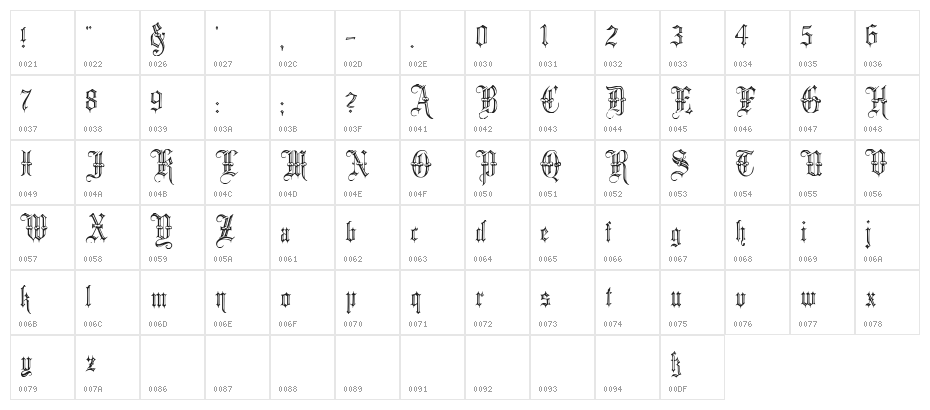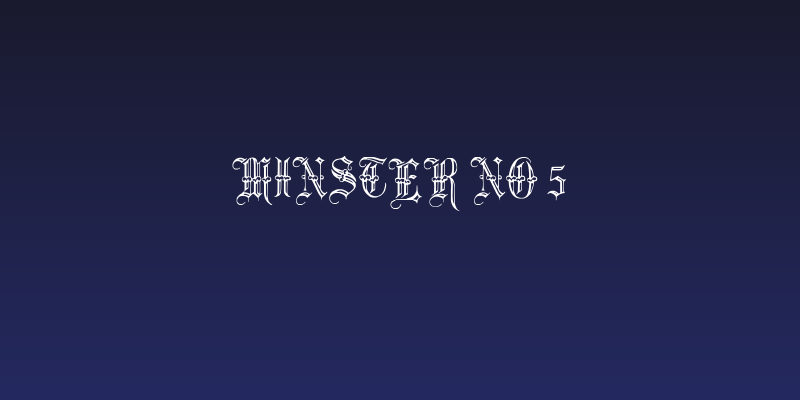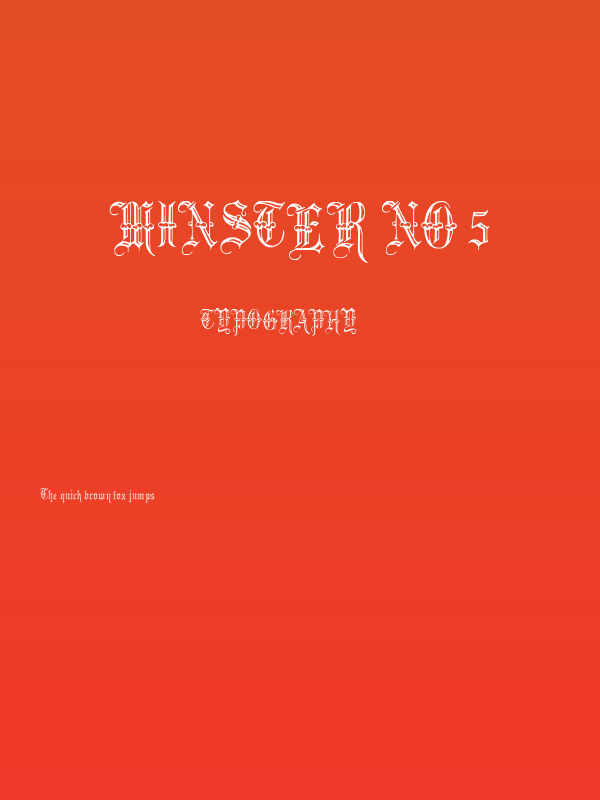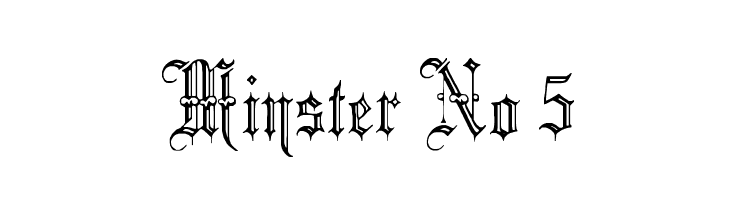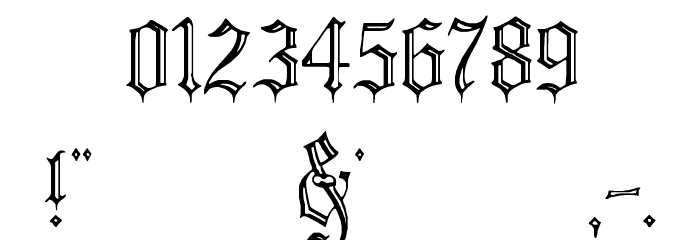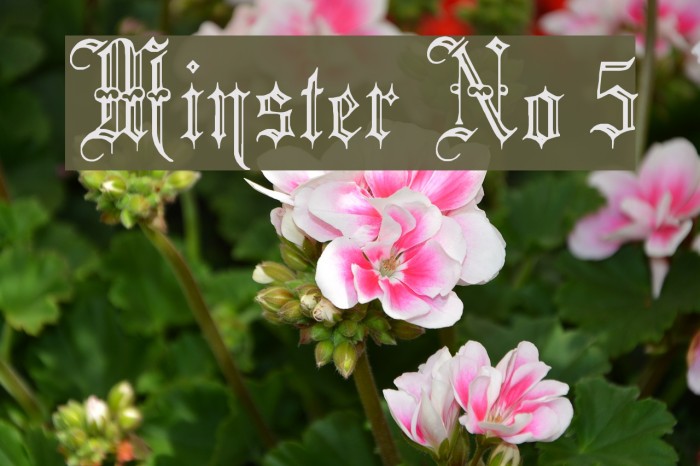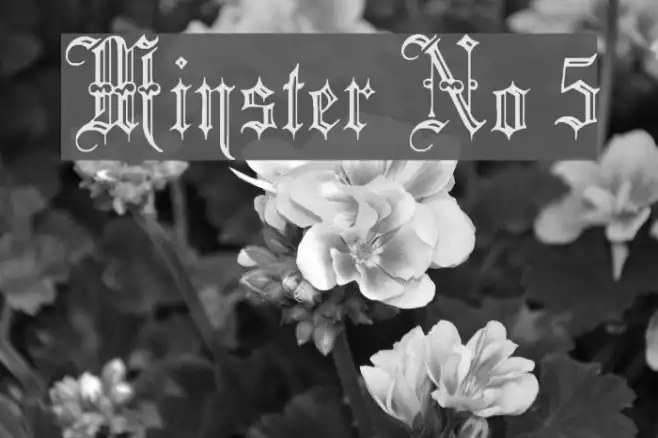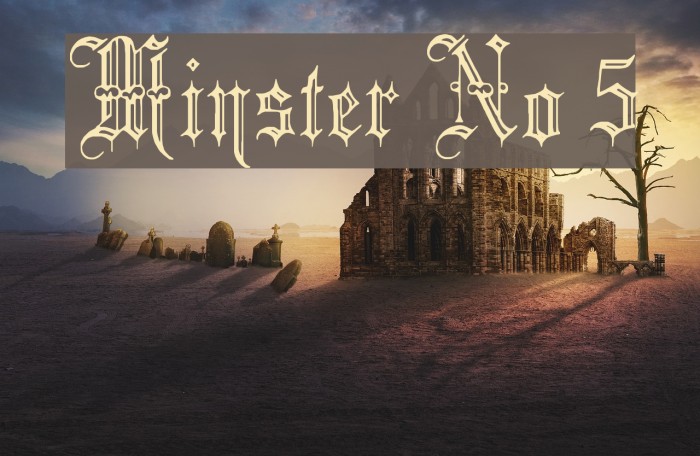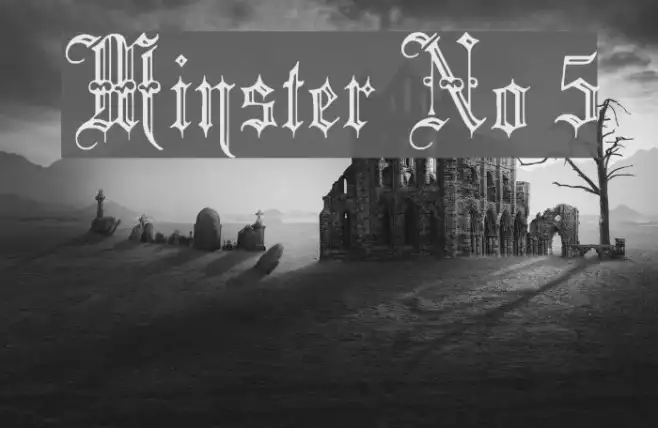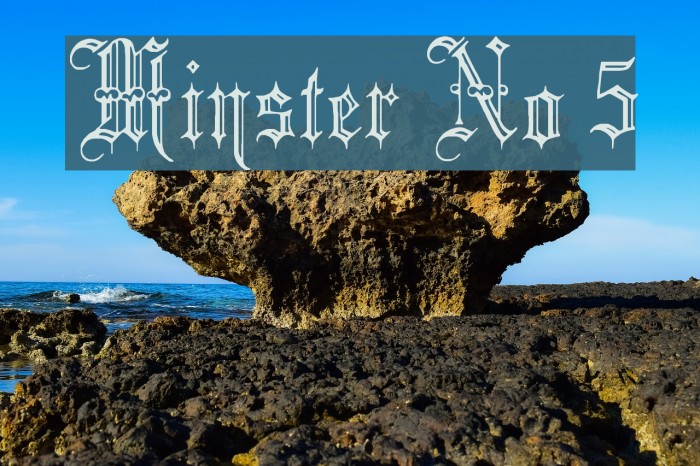
Minster No 5 Font
✎ Old fashioned
| Catégories | Old fashioned |
| Cas d'utilisation | Logos, Headlines, Decorative text |
| Projets proposés | Suitable for historical documents, certificates, wedding invitations, book covers, and branding that requires a vintage or gothic aesthetic. |